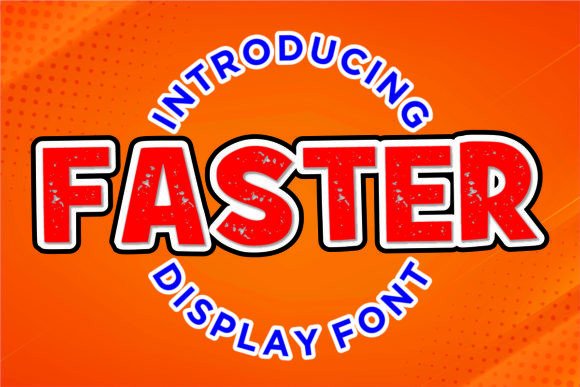
Faster Font: The Ultimate Display Font for Your Creative Projects
In the world of graphic design, fonts play a crucial role in conveying messages, expressing emotions, and creating visual identities. Among the numerous fonts available, Faster Font stands out as a cool and bold display font that can elevate your creative projects to the next level. In this article, we’ll explore the features, benefits, and uses of Faster Font, and provide tips on how to make the most of this versatile font.
What is Faster Font?
Faster Font is a modern, sans-serif display font designed to make a statement. Its bold and edgy style makes it perfect for attention-grabbing headlines, titles, and captions. The font’s clean and minimalist design ensures that it remains legible even at smaller sizes, making it suitable for a wide range of applications.
Key Features of Faster Font
- Bold and Edgy Style: Faster Font boasts a confident and modern aesthetic that’s sure to turn heads.
- Clean and Minimalist Design: The font’s simplicity ensures that it remains legible and versatile.
- Highly Legible: Faster Font is designed to be easy to read, even at smaller sizes.
Uses of Faster Font
Faster Font is an incredibly versatile font that can be used for a wide range of creative projects, including:
- T-Shirt Designs: Create eye-catching t-shirt designs that make a statement.
- Branding and Logos: Use Faster Font to create bold and memorable logos that represent your brand.
- Advertisements: Make your ads stand out with Faster Font’s attention-grabbing style.
- Posters and Flyers: Create striking posters and flyers that grab attention.
- Children’s Short Stories: Add a touch of fun and playfulness to your children’s book designs.
- Greeting Cards: Create personalized and stylish greeting cards for special occasions.
- Planners and Organizers: Use Faster Font to add a touch of personality to your planners and organizers.
- Photo Albums: Create beautiful and stylish photo albums that showcase your memories.
- Decorations: Use Faster Font to create eye-catching decorations for parties, events, and more.
Benefits of Using Faster Font
Using Faster Font can bring numerous benefits to your creative projects, including:
- Increased Visibility: Faster Font’s bold style ensures that your message gets noticed.
- Improved Readability: The font’s clean design makes it easy to read, even at smaller sizes.
- Enhanced Creativity: Faster Font’s versatility allows you to experiment with different styles and designs.
Tips for Using Faster Font
Faster Font is a powerful and versatile display font that can elevate your creative projects to new heights. With its bold and edgy style, clean design, and high legibility, it’s perfect for a wide range of applications. By following the tips outlined in this article, you can make the most of Faster Font and create stunning designs that grab attention.